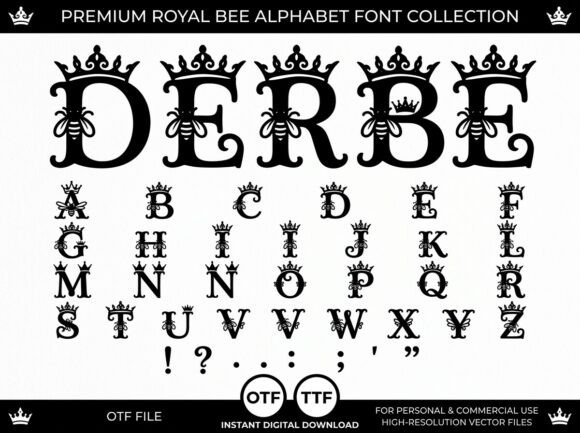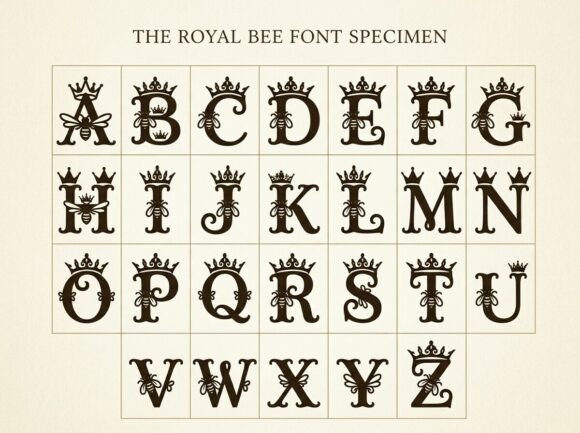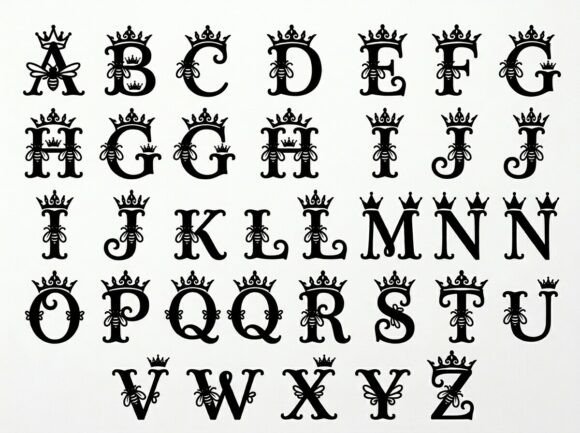
The Regal Charm of Derbe Font: A Designer’s Dream Come True
I still remember the design project that led me to discover the exquisite Derbe font. I was working on a luxury branding project for a high-end garden nursery, and I needed a font that would convey a sense of elegance, sophistication, and whimsy. After scouring through countless font libraries, I stumbled upon Derbe, and it was love at first sight! ✨
Derbe is a premium display font that masterfully combines classical elegance with whimsical nature motifs. Each character is crowned with an ornate tiara and adorned with a delicately illustrated honeybee, creating a visual narrative of luxury and artisanal grace. In this article, I’ll share my experience with Derbe, its features, and how to make the most of this extraordinary typeface.
An Honest Review of Derbe Font
What I Love About Derbe
- ✨ Unique and eye-catching design: Derbe’s blend of traditional serif letterforms and whimsical nature motifs makes it stand out from other fonts.
- ✅ High-quality illustrations: The intricate details and delicate illustrations of the honeybees and tiaras are truly exceptional.
- 🌿 Versatility: Derbe can be used for a wide range of design projects, from luxury branding to packaging and event stationery.
- 👑 Royal and sophisticated feel: Derbe exudes a sense of majesty and prestige, perfect for high-end designs.
While Derbe is an exceptional font, there are a few things to keep in mind: 🤔
- ⚠️ Limited use cases: Due to its ornate design, Derbe may not be suitable for body text or small font sizes.
- ⚠️ Glyph limitations: Some users have reported that certain glyphs, such as ligatures, are not available in all platforms.
The Backstory of Derbe Font
Derbe font was inspired by the ancient city of Derbe, a small town in modern-day Turkey known for its rich history and natural beauty. The font’s designer aimed to capture the essence of this charming town by combining traditional serif letterforms with whimsical nature motifs, creating a unique and eye-catching typeface.
Q: What is the best use case for Derbe font?
A: Derbe font is perfect for luxury branding, high-end garden nursery logos, royal-themed event stationery, and artisanal apothecary packaging.
Q: Is Derbe font suitable for body text?
A: Due to its ornate design, Derbe font is not recommended for body text or small font sizes. It’s best used for headlines, titles, or short paragraphs.